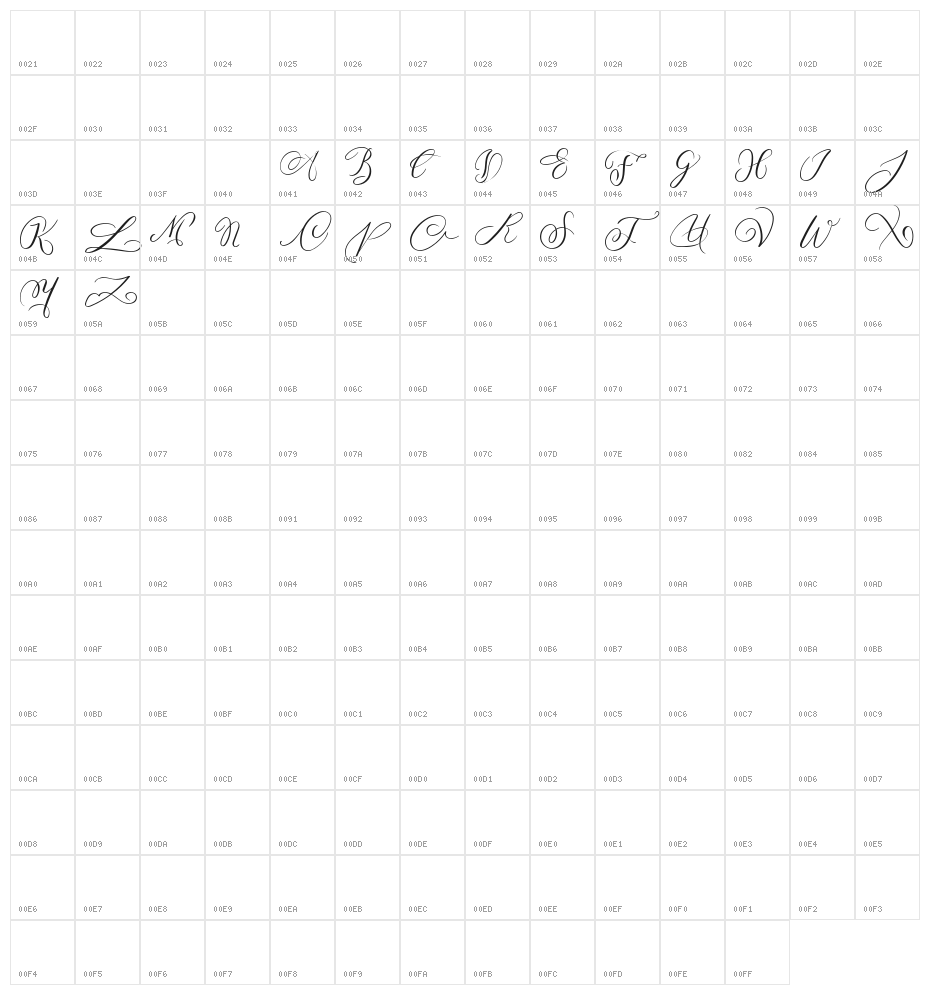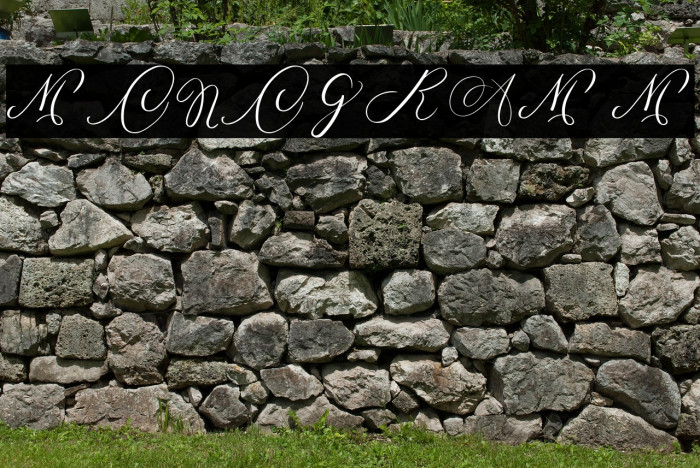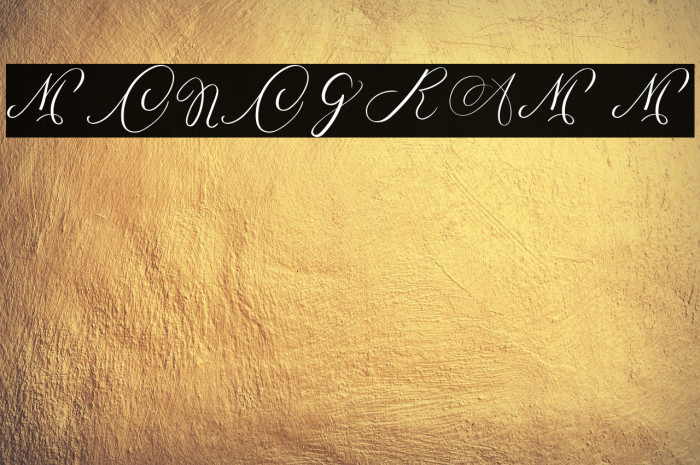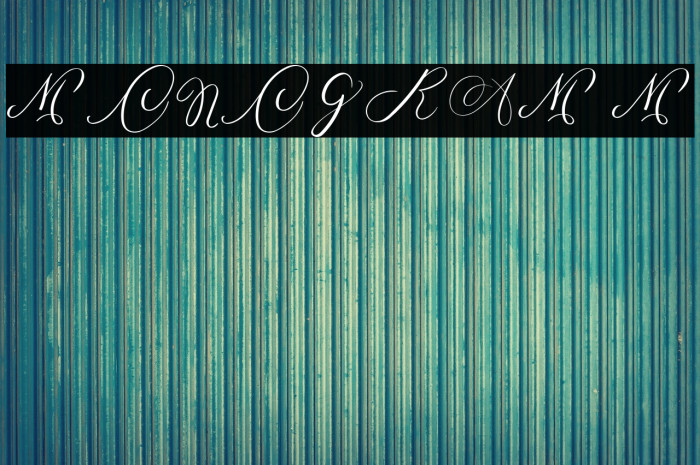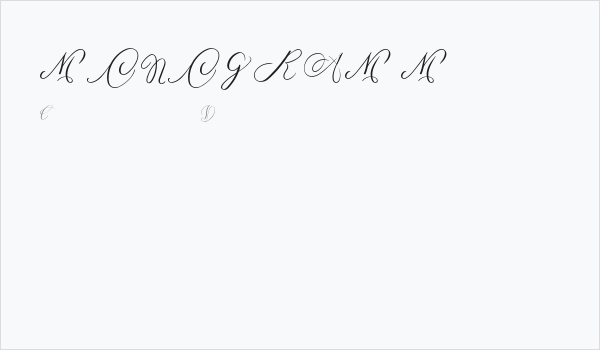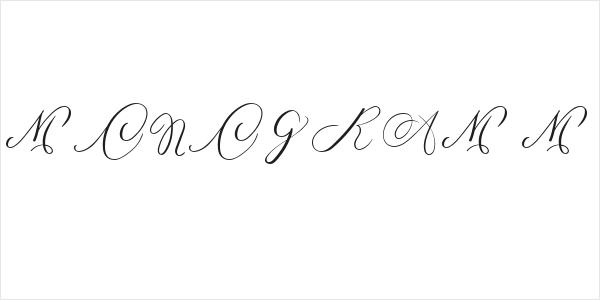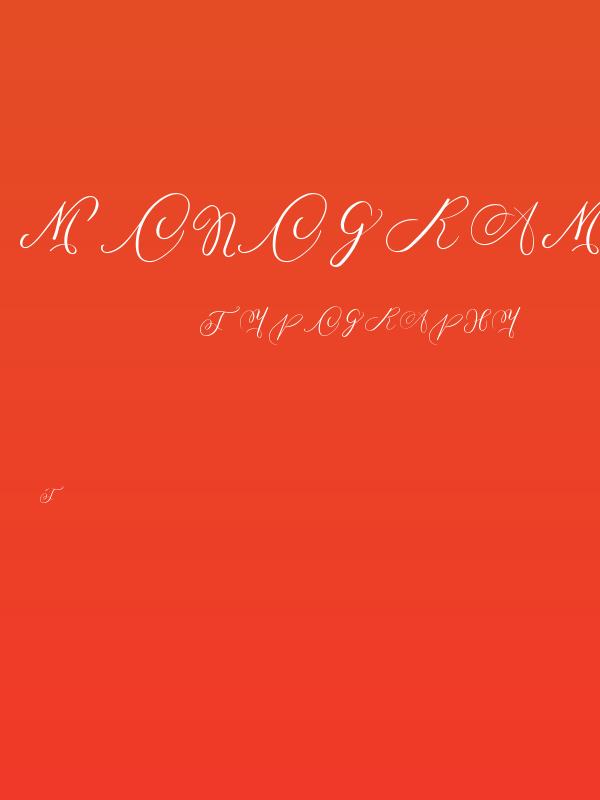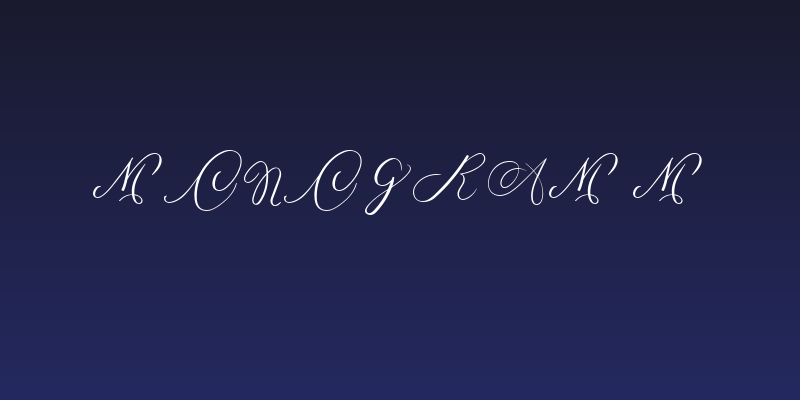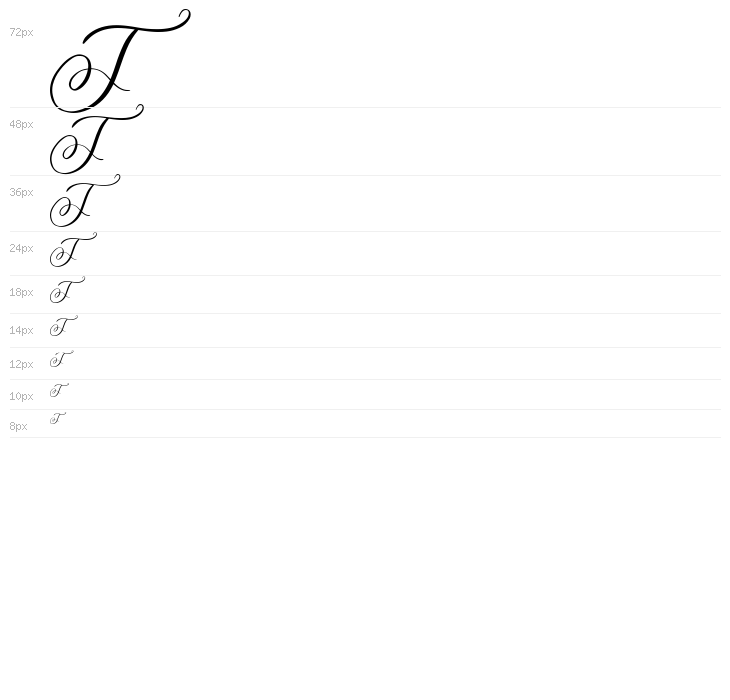
MONOGRAM M Font
MONOGRAM M Description
This elegant script font features intricate, flowing lines and elaborate swashes, giving it a sophisticated and ornate appearance. Each letter is crafted with delicate curves and loops, creating a sense of movement and grace. The uppercase letters are particularly decorative, with extended flourishes that enhance their visual appeal. This font is perfect for creating a luxurious and refined aesthetic, suitable for formal invitations, branding, and high-end product packaging. Its artistic style makes it ideal for projects that require a touch of elegance and class.
| Use Case | Logos, Invitations, Branding |
| Proposed Projects | Ideal for wedding invitations, luxury branding, high-end packaging, and decorative monograms. |